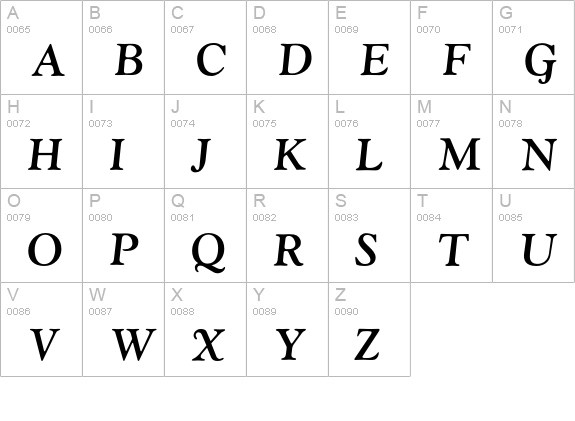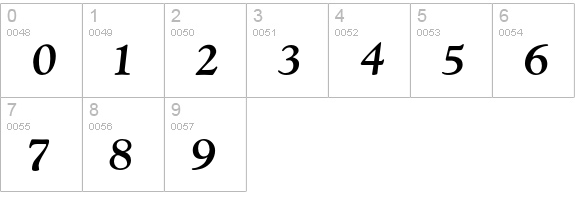
GoudyBoldItalic Font Details
GoudyBoldItalic is a stunning and elegant font that combines the boldness of Goudy with a touch of stylish italic flair. This font exudes sophistication and is perfect for adding a touch of class to any design project. The strong, bold lines paired with the subtle slant of the italic style create a harmonious balance that is visually appealing. What makes GoudyBoldItalic even more appealing is that it is available for free download at FontsMarket.com. This means that you can easily access this beautiful font to elevate your designs without any cost. Whether you are working on a branding project, a website design, or any other creative endeavor, GoudyBoldItalic is sure to make a statement and leave a lasting impression. Download this font today and see how it can enhance your design projects with its timeless elegance.